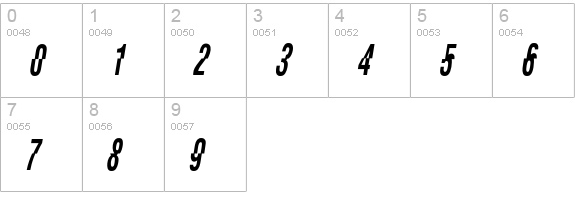
Carrousel Font Details
Carrousel font is a delightful and whimsical typeface that exudes a sense of playful elegance. Its charming curves and graceful strokes make it perfect for adding a touch of sophistication to any design project. The unique letterforms of Carrousel font will captivate your audience and bring a sense of joy to your creations. What makes Carrousel font even more enticing is that it is available for free download at FontsMarket.com. This means you can easily access this beautiful font and use it in your personal or commercial projects without any cost. Whether you're designing invitations, posters, logos, or any other creative work, Carrousel font will surely elevate your designs with its distinctive style. Don't miss out on the opportunity to enhance your projects with the enchanting Carrousel font. Download it for free today at FontsMarket.com and let your creativity shine with this elegant and whimsical typeface.